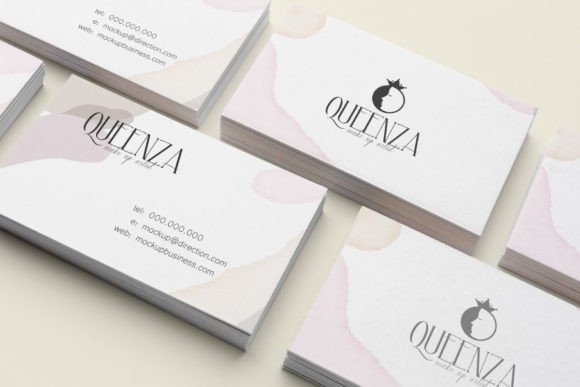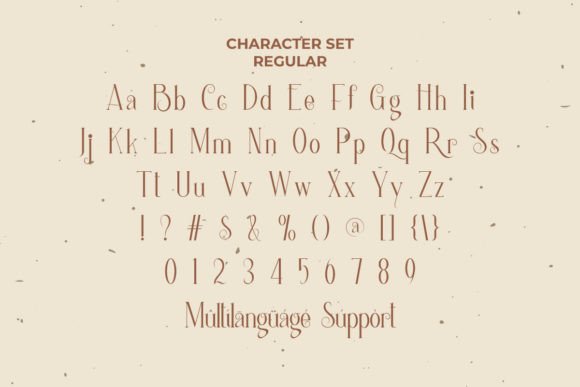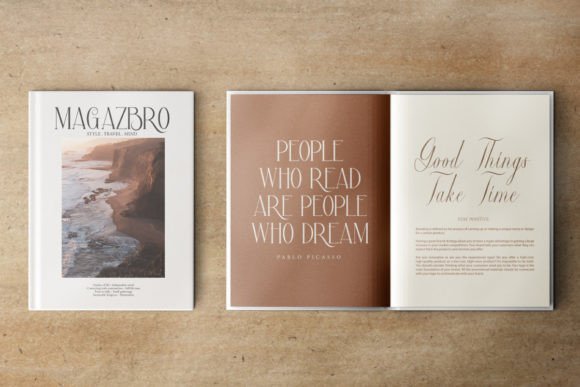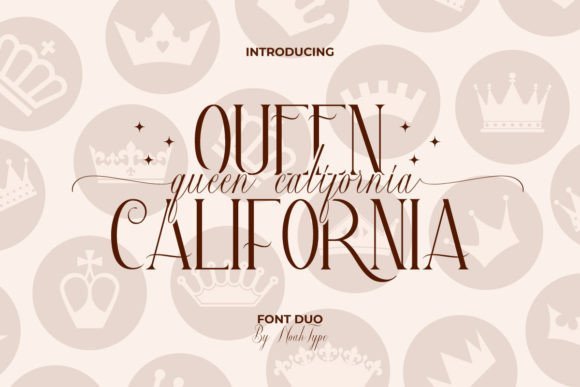
Introduction to Queen California Font
Queen California Font is a stunning font duo with two styles of letters, consisting of a luxury serif display with handwriting calligraphy script.
The characters of these two fonts have an elegant and sophisticated look Use for adding a touch of grace, perfect for wedding invitations, social media posts, magazines, or branding materials.